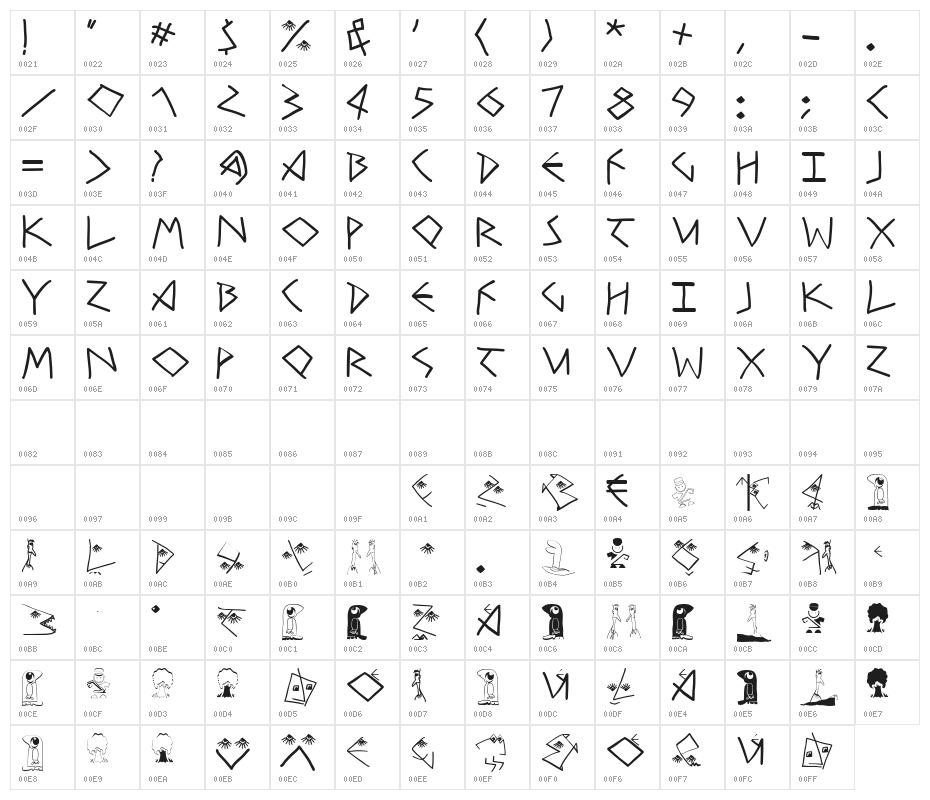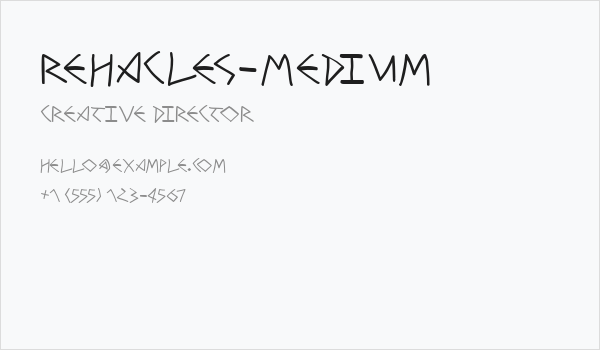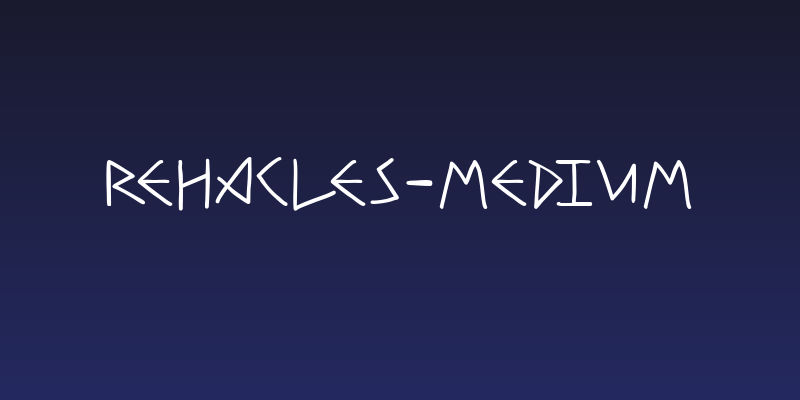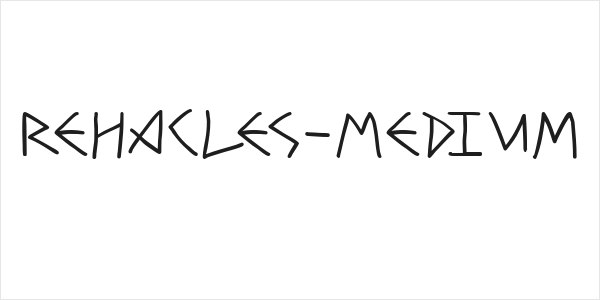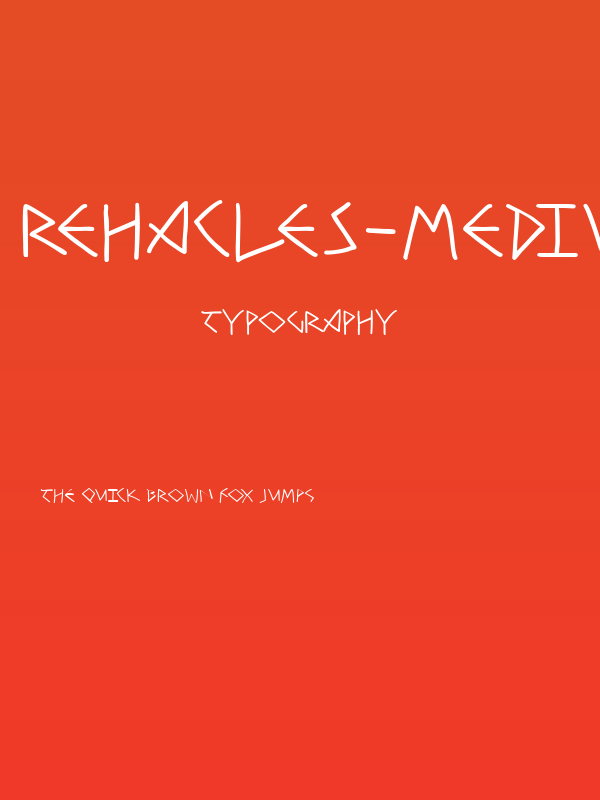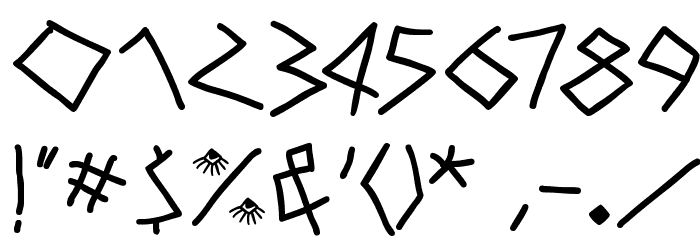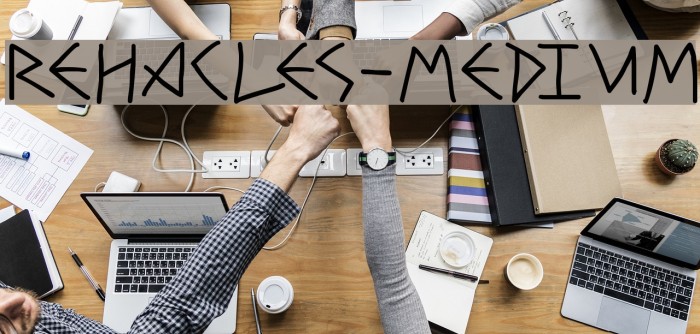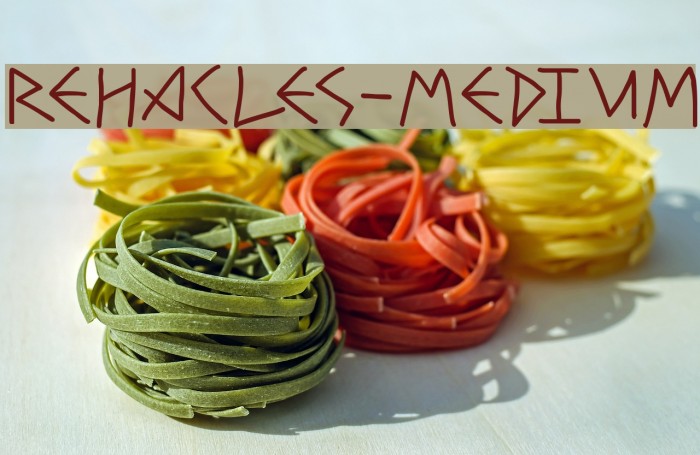
Rehacles-Medium Font
Rehacles-Medium Description
This font features a unique, angular design reminiscent of ancient runes or geometric patterns. Each character is crafted with sharp edges and distinct angles, creating a bold and striking appearance. The uppercase and lowercase letters maintain a consistent style, with a slightly condensed form that enhances readability while preserving its decorative nature. The numerals and special characters follow the same angular theme, ensuring a cohesive look across all glyphs. This font's distinctive style makes it ideal for projects that require a touch of historical or mystical flair.
| Proposed Projects | Ideal for fantasy-themed designs, game titles, posters, and branding that requires a mystical or ancient aesthetic. |